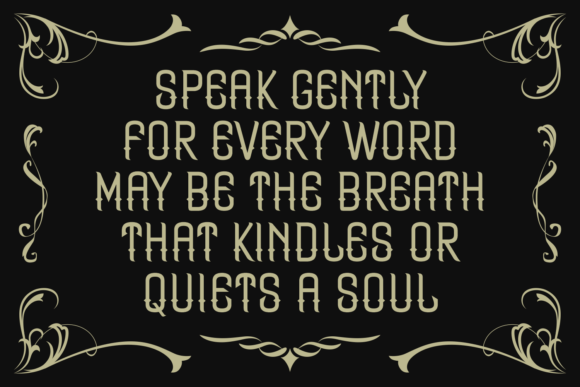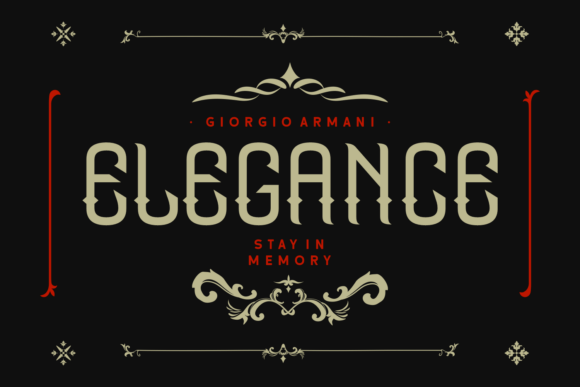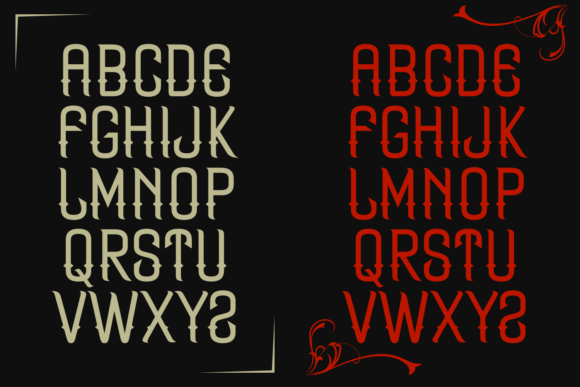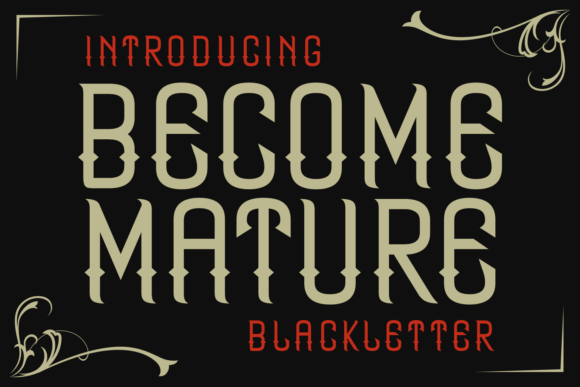
Unleash Your Design Potential with Become Mature Font
In the world of typography, fonts play a crucial role in conveying the tone and personality of a design. For designers and crafters looking to add a touch of boldness and edginess to their projects, Become Mature font is an excellent choice. This striking blackletter font combines traditional gothic elements with a modern geometric twist, making it perfect for a wide range of applications.
The Unique Personality of Become Mature Font
Become Mature font boasts a tall, condensed structure that commands attention. Its sharp ornamental cuts add a level of sophistication and elegance, setting it apart from other blackletter fonts. This unique blend of gothic tradition and contemporary design makes Become Mature font an excellent choice for designers looking to create striking posters, album covers, logos, tattoos, and editorial layouts.
Key Features of Become Mature Font
- Bold Blackletter Font: Become Mature font is a bold and daring blackletter font that makes a statement.
- Modern Geometric Twist: The font’s modern geometric twist gives it a fresh and contemporary feel.
- Tall and Condensed Structure: The font’s tall and condensed structure makes it perfect for headlines and titles.
- Sharp Ornamental Cuts: The sharp ornamental cuts add a level of sophistication and elegance to the font.
Become Mature font is versatile and can be used in a variety of applications, including:
- Posters: Create eye-catching posters that grab attention with Become Mature font.
- Album Covers: Add a touch of edginess to your album covers with this bold font.
- Logos: Create a lasting impression with a logo that uses Become Mature font.
- Tattoos: Design striking tattoos that make a statement with this unique font.
- Editorial Layouts: Use Become Mature font to create striking editorial layouts that stand out.
Why Choose Become Mature Font?
With so many fonts available, why choose Become Mature font? Here are a few reasons:
- Unique Personality: Become Mature font has a unique personality that blends gothic tradition with contemporary design.
- Versatility: The font is versatile and can be used in a wide range of applications.
- Attention-Grabbing: The font is designed to grab attention and make a statement.
Tips for Using Become Mature Font
Here are a few tips for using Become Mature font effectively:
- Use it Boldly: Become Mature font is designed to be used boldly, so don’t be afraid to make it large and prominent.
- Pair it with Contrasting Fonts: Pair Become Mature font with contrasting fonts to create visual interest.
- Experiment with Colors: Experiment with different colors to find the perfect combination that works with your design.
Become Mature font is a bold and daring blackletter font that is perfect for designers and crafters looking to add a touch of edginess to their projects. With its unique personality, versatility, and attention-grabbing design, it’s an excellent choice for a wide range of applications. Whether you’re creating posters, album covers, logos, tattoos, or editorial layouts, Become Mature font is sure to make a statement.